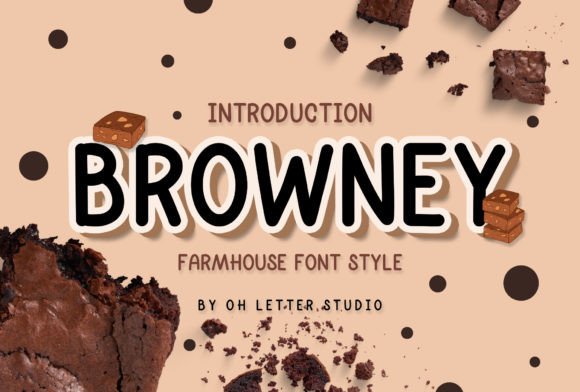
The Sweet Spot: Discovering the Charm of Browney Font
I’ll never forget the time I was working on a design project for a client’s bakery, struggling to find the perfect font that captured the sweet and playful vibe of their brand. The client wanted a font that was bold, cute, and striking, yet easy to read and versatile enough to use across various marketing materials. After hours of scouring font libraries and testing different options, I stumbled upon Browney Font – and it was love at first sight! ✨
So, what makes Browney Font so special? Here are some things I love:
• ✅ Unique personality: Browney Font has a distinct, hand-crafted feel that’s perfect for designs that need a touch of whimsy and charm.
• ✅ Versatility: This font is flexible and easy to use, making it suitable for a wide range of design projects, from logos and branding to packaging and DIY crafts.
• ✅ Readability: Despite its bold and playful appearance, Browney Font is surprisingly easy to read, even in smaller sizes.
• ✨ Aesthetic appeal: The font’s sweet and inviting vibe makes it perfect for designs that feature snacks, desserts, or other food-related themes.
Of course, no font is perfect, and Browney Font has a few minor quirks:
• ⚠️ Limited formal applications: Due to its playful nature, Browney Font may not be the best choice for formal or professional designs that require a more serious tone.
• 🤔 Glyph limitations: While Browney Font has a range of glyphs and OpenType features, it may not have every special character or symbol you need.
• Stylistic alternates: Switch between different font styles to add visual interest to your design.
• Ligatures: Use special character combinations to create unique and creative text effects.
• Glyphs: Access a range of special characters and symbols to add extra flair to your design.
The Story Behind Browney Font
Browney Font was designed with one goal in mind: to create a font that captures the sweetness and charm of desserts and snacks. The designer, inspired by the world of baking and food, set out to create a font that’s both playful and elegant. The result is a font that’s perfect for designs that need a touch of whimsy and fun.
Author Marty Letter Studio
What is Browney Font best used for? Browney Font is perfect for designs that feature snacks, desserts, or other food-related themes, as well as DIY crafts, logos, and branding.
Is Browney Font suitable for formal designs? No, Browney Font’s playful nature makes it better suited for informal or creative designs.
Does Browney Font come with OpenType features? Yes, Browney Font comes with a range of OpenType features, including stylistic alternates, ligatures, and glyphs.